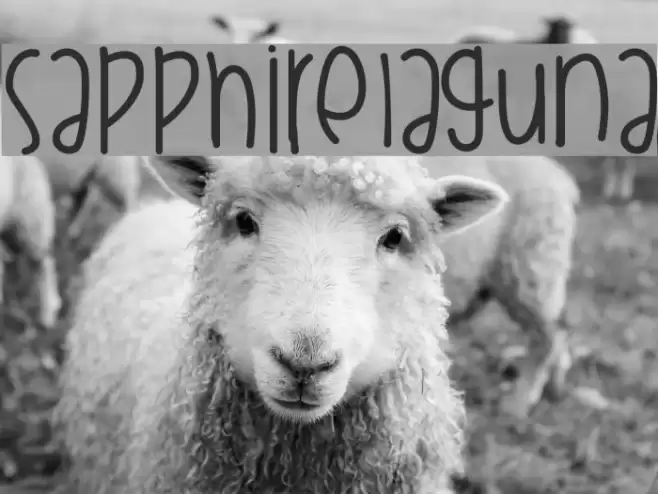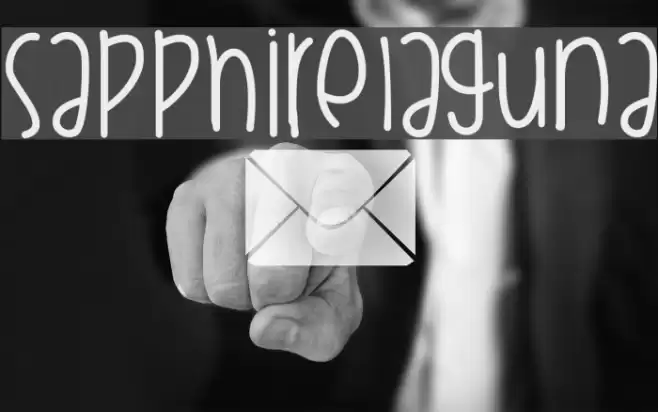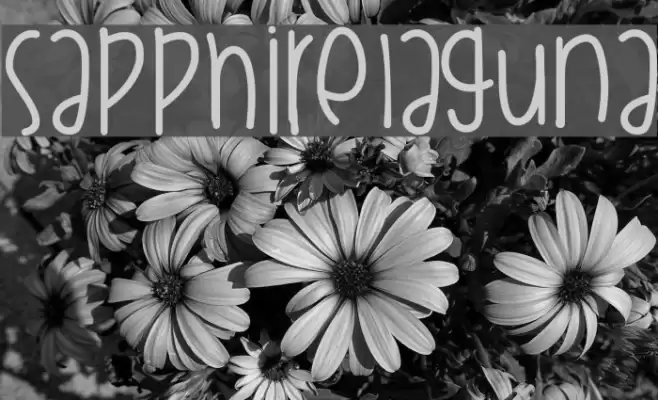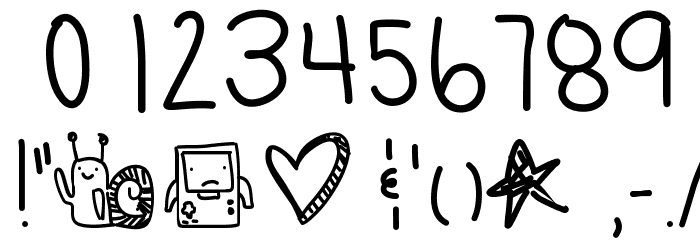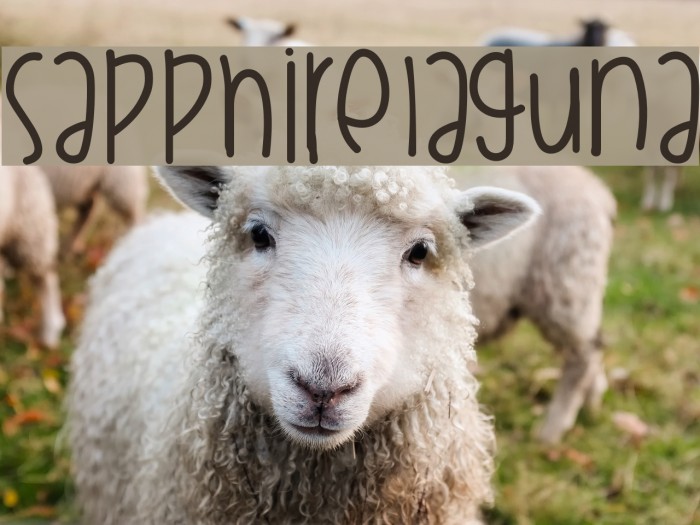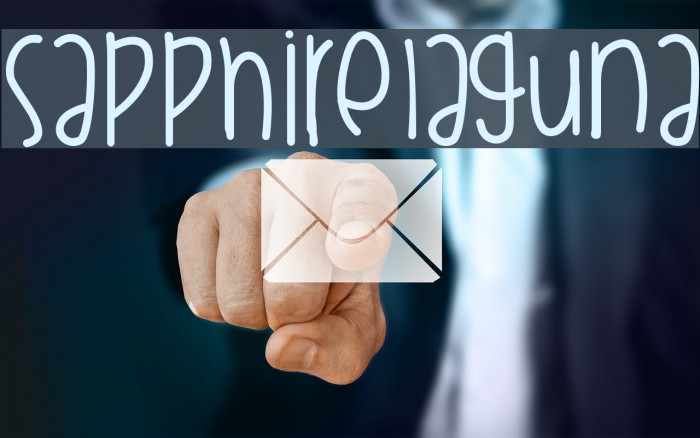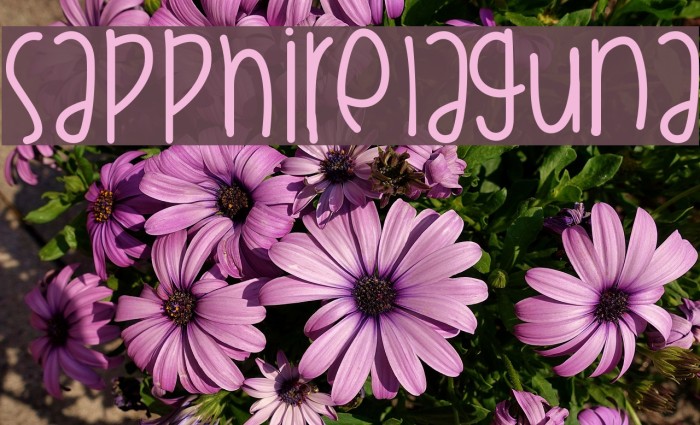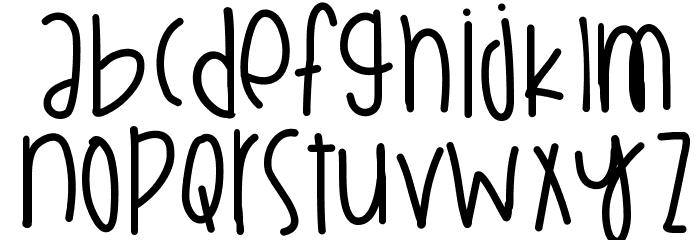
SapphireLaguna Font
SapphireLaguna Description
This playful and whimsical font features a handwritten style with a casual, friendly appearance. The letters are slightly irregular, adding a touch of personality and charm. The strokes are consistent in thickness, giving it a cohesive look. The characters are tall and narrow, with a slight slant that adds to the informal feel. The font includes a full set of uppercase and lowercase letters, numbers, and a variety of special characters, making it versatile for different uses. Its unique style is perfect for projects that require a personal touch or a fun, informal vibe.
A playful, handwritten font with a casual and friendly appearance from Uncategorized fonts.
- Proposed Projects: Ideal for greeting cards, children's books, playful branding, and social media graphics.
- Use Case: Headlines, Logos, Social media graphics